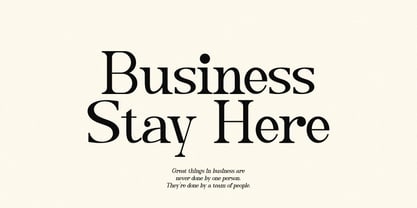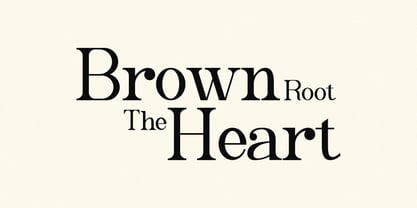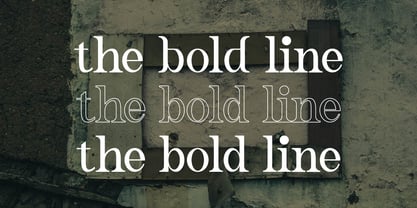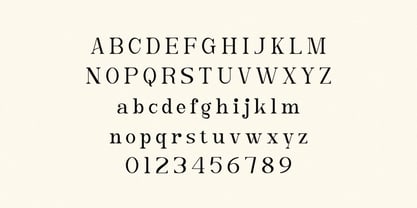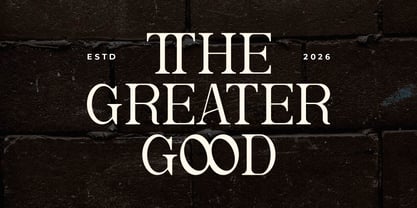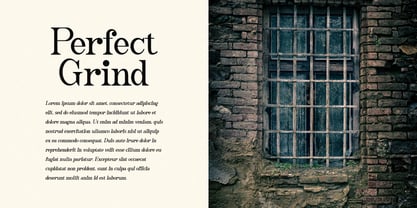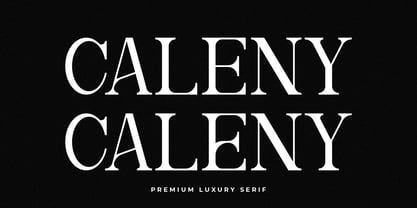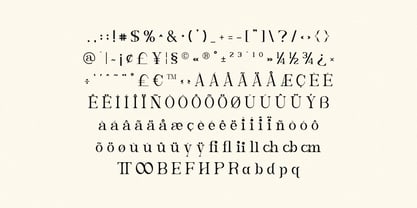
Caleny
por Artiveko
La familia tipográfica Caleny fue diseñada por Iwan Alwan y publicada por Artiveko. Caleny contiene 2 estilos y opciones de paquete familiar. Más información sobre esta familia
Caleny is a refined vintage serif font designed to infuse classic elegance and nostalgic character into modern design. Featuring graceful serifs, balanced contrast, and old-style letterforms, Caleny embodies the warmth and sophistication of traditional typography. Ideal for branding, packaging, book covers, labels, logos, posters, editorial layouts, and heritage-inspired projects, Caleny imparts a timeless and authentic feel to any visual identity. Its classic structure ensures strong readability while showcasing a distinctive vintage personality. Caleny includes uppercase and lowercase characters, numerals, punctuation, multilingual support, and stylistic alternates, providing extended creative flexibility. Elevate your designs with Caleny — a vintage serif font that embodies elegance, authenticity, and enduring appeal.
Diseñadores: Iwan Alwan
Fundición: Artiveko
Artiveko is a font design team based in Indonesia, comprised of several talented font designers who commenced their careers in the font design industry in 2020. With a dedicated focus on crafting fonts, the team members bring their collective expertise and passion to every project they undertake. Situated in Indonesia, Artiveko draws inspiration from the vibrant cultural landscape of the region, infusing their creations with unique flavors and aesthetics.The team's font collection encompasses a diverse range of styles, including serif, sans serif, handwritten, and script typefaces. Each typeface is meticulously crafted to meet the demands of modern design while offering versatility and functionality across various applications. Whether it's the classic elegance of serif fonts, the contemporary appeal of sans serif designs, the personal touch of handwritten scripts, or the expressive flourishes of script fonts, Artiveko ensures that every font reflects their dedication to quality and innovation.Artiveko's fonts have garnered recognition and acclaim, with their works being featured on prominent social media platforms like Creative Market. Through these platforms, the team has been able to connect with a global audience of designers and typographers, further amplifying their reach and influence in the industry. Their fonts are celebrated for their impeccable craftsmanship, attention to detail, and ability to elevate design projects with style and sophistication.As Artiveko continues to evolve and expand its font collection, the team remains committed to pushing the boundaries of typography and setting new standards of excellence. With a relentless focus on creativity, innovation, and collaboration, Artiveko strives to inspire and empower designers around the world with their distinctive and versatile font designs.